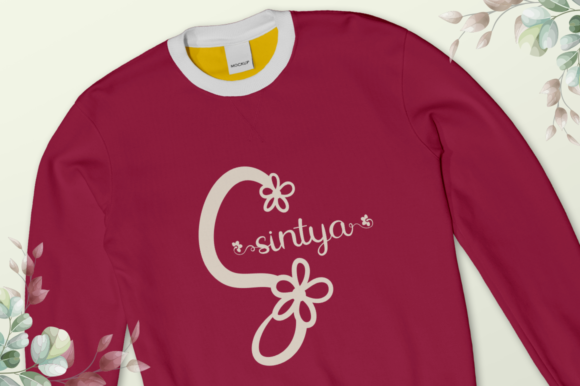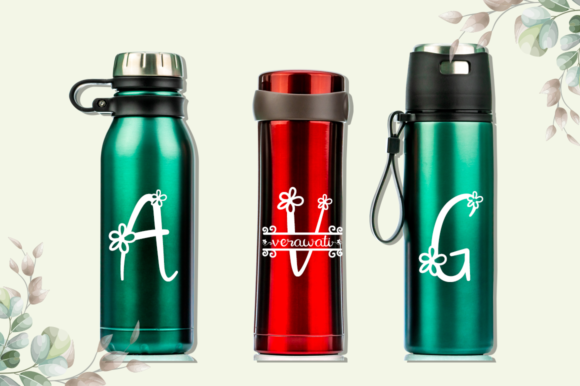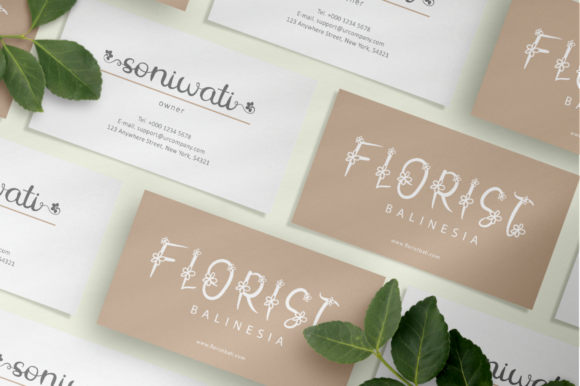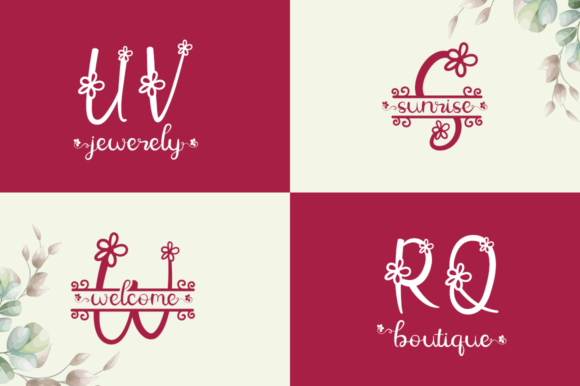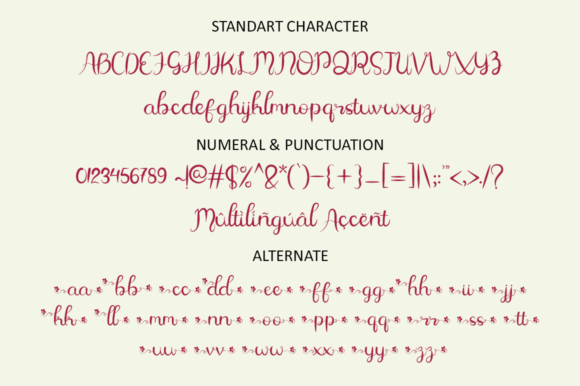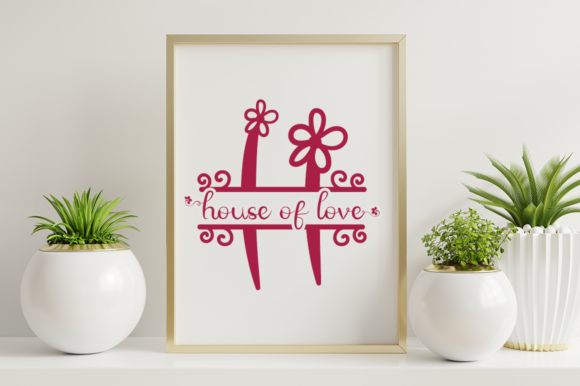
Introduction to Flower Monogram Font
Flower Monogram is a sweet and beautiful handwritten font.
It looks as if it was the handwriting of a child, and as a result, this font will be the perfect choice for writing letters to Santa or adding a touch of innocence to your creations .
Key Features of Flower Monogram Font
Why Choose Flower Monogram Font?
Flower Monogram Font offers exceptional quality and versatility, making it a valuable addition to your design toolkit. Whether you’re creating for personal projects or commercial use, Flower Monogram Font delivers professional results.